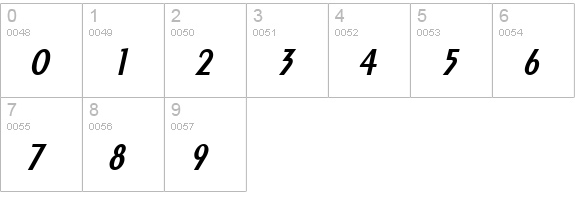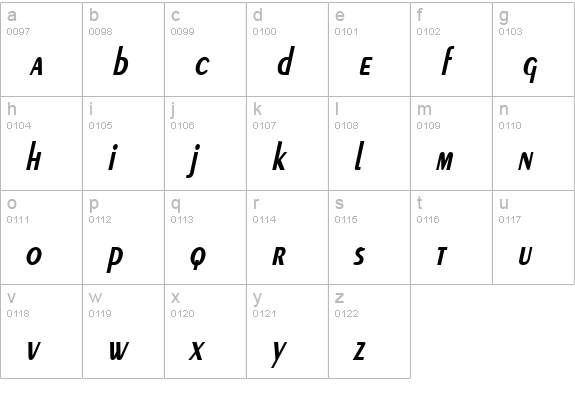
Pare Condensed BoldItalic is a distinctive, condensed-width variant in the Pare typeface family \xE2\x80\x94 well suited to design and typography projects.
Pare Condensed BoldItalic font exudes an air of boldness and elegance, making it the perfect choice for designers and creatives looking to make a statement. With its sleek and modern design, this font combines the best of both worlds with its condensed form and italicized style, adding a touch of sophistication to any project. The bold and slanted nature of Pare Condensed BoldItalic font gives it a unique and distinctive look, making it stand out from the crowd. Its condensed form allows for efficient space usage, making it ideal for headlines, titles, and any text that needs to make a strong impact. And the best part? Pare Condensed BoldItalic font is available for free. That's right, you can freely download this font from FontsMarket.com, the go-to destination for high-quality fonts. Whether you're a professional designer or a hobbyist, this font will give your projects that extra edge, without breaking the bank. So why wait? Enhance your design arsenal with Pare Condensed BoldItalic font and let your creativity shine. Download it for free at FontsMarket.com and unleash the power of bold elegance in your next project.